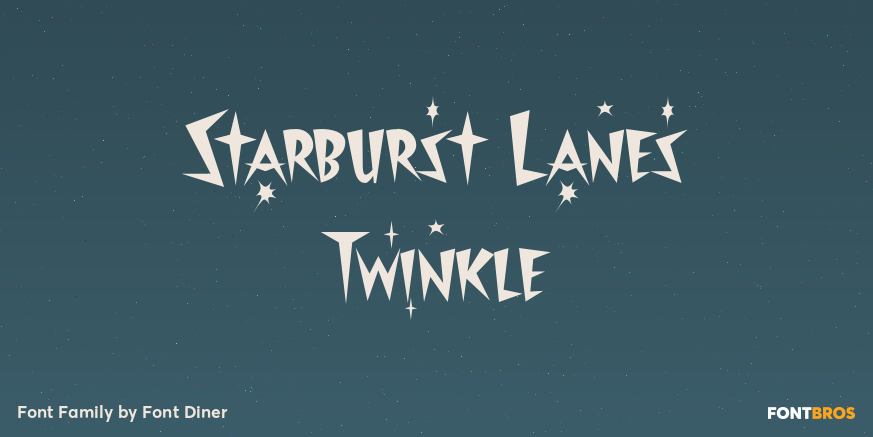
HomeFont BrosRetro (1936-1965)Starburst Lanes Twinkle Retro (1936-1965)Special Effect Starburst Lanes Twinkle FacebookXPinterestWhatsApp 1 of 1 About Starburst Lanes Twinkle Blast into orbit with this space age 1950s inspired font complete with stars and constellations to light your way home!  DOWNLOAD NOW People also explored Pumpkin Halloween Font Third Lol Font Raccoon Font Karelle Font Seven Star Font The Snowday Font Starting Live Valentine Font Eralyne Font 222 0 TagsStarburst Lanes Twinkle Font Previous articleWestern DressingNext articleDas Riese LEAVE A REPLY Cancel reply Comment: Please enter your comment! Name:* Please enter your name here Email:* You have entered an incorrect email address! Please enter your email address here Website: Save my name, email, and website in this browser for the next time I comment. Personal Use Free Gupis Personal Use Free Read more about this font Angelia Personal Use Free Read more about this font Artisan Signature Personal Use Free Read more about this font Squealer Personal Use Free Read more about this font BLOG Top 10 Handwritten Fonts That Elevate Your Designs Top 10 Handwritten Fonts That Will Elevate Your Designs Handwritten fonts bring a warm, personal touch to every creative project. Whether you're designing logos, invitations,... 5 Fonts That Will Dominate Design Trends in 2026 How to Install and Use Fonts on Windows, macOS, and Web Projects Best Fonts for YouTube Videos: Make Your Thumbnails Stand Out